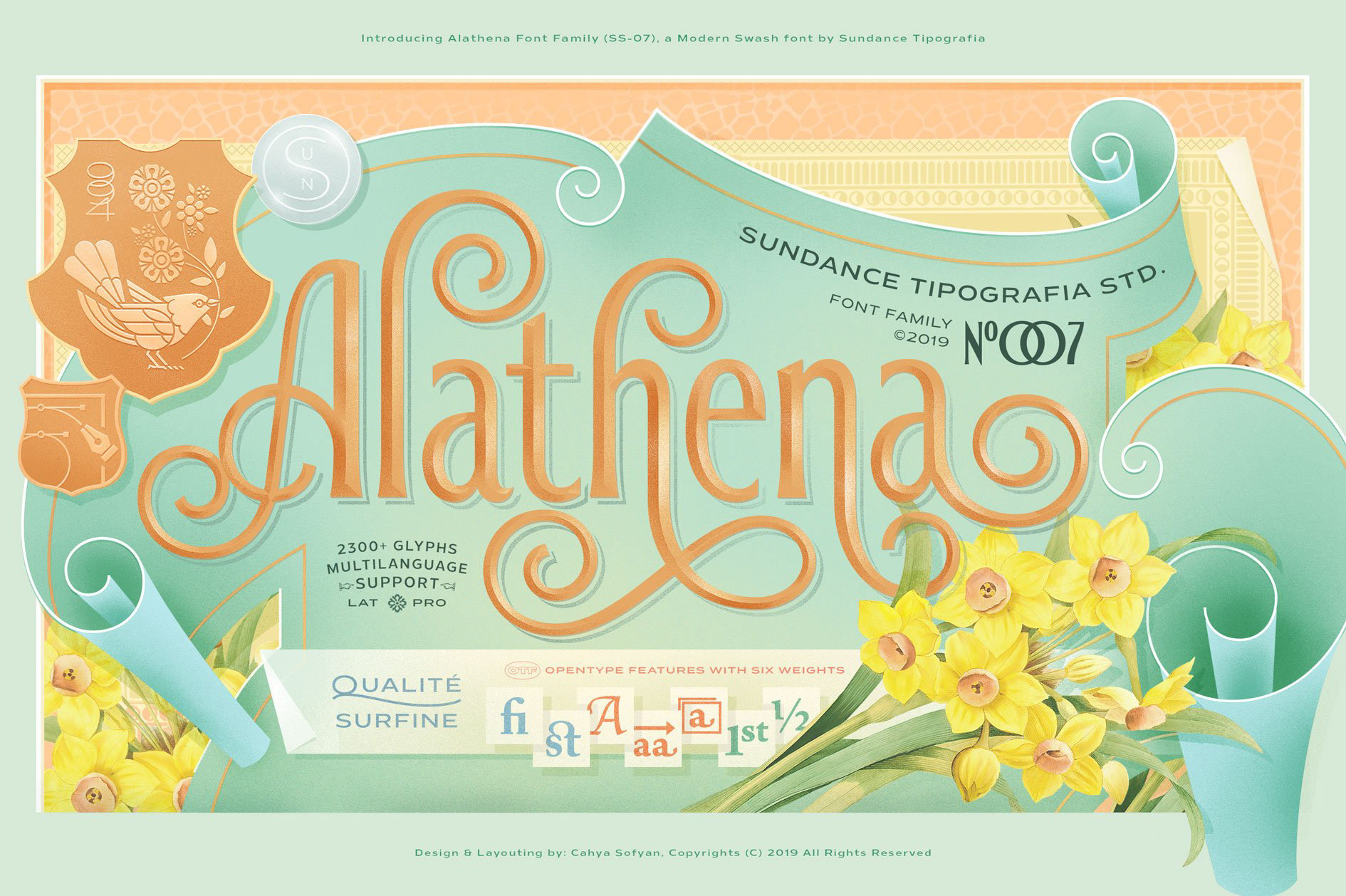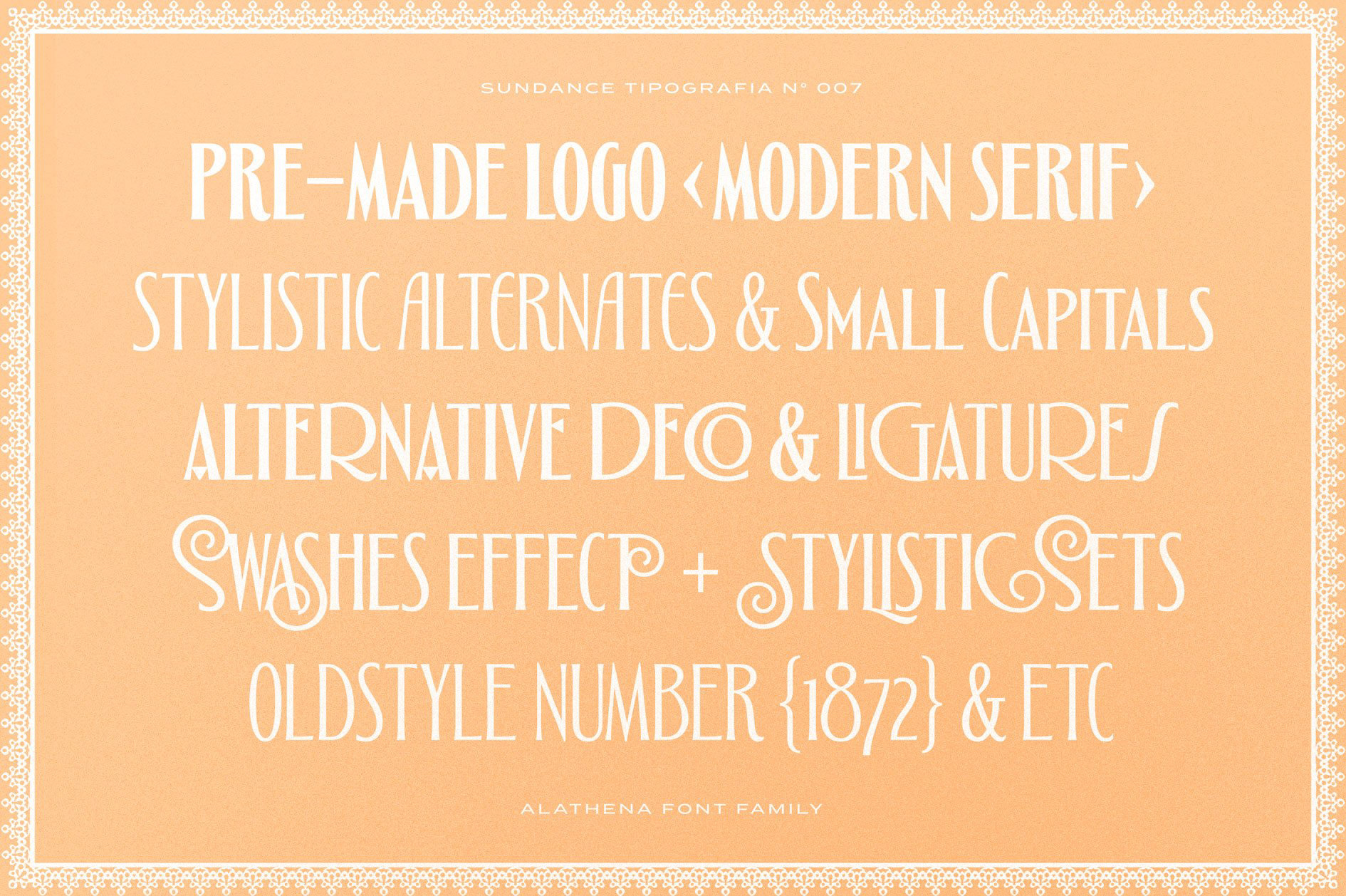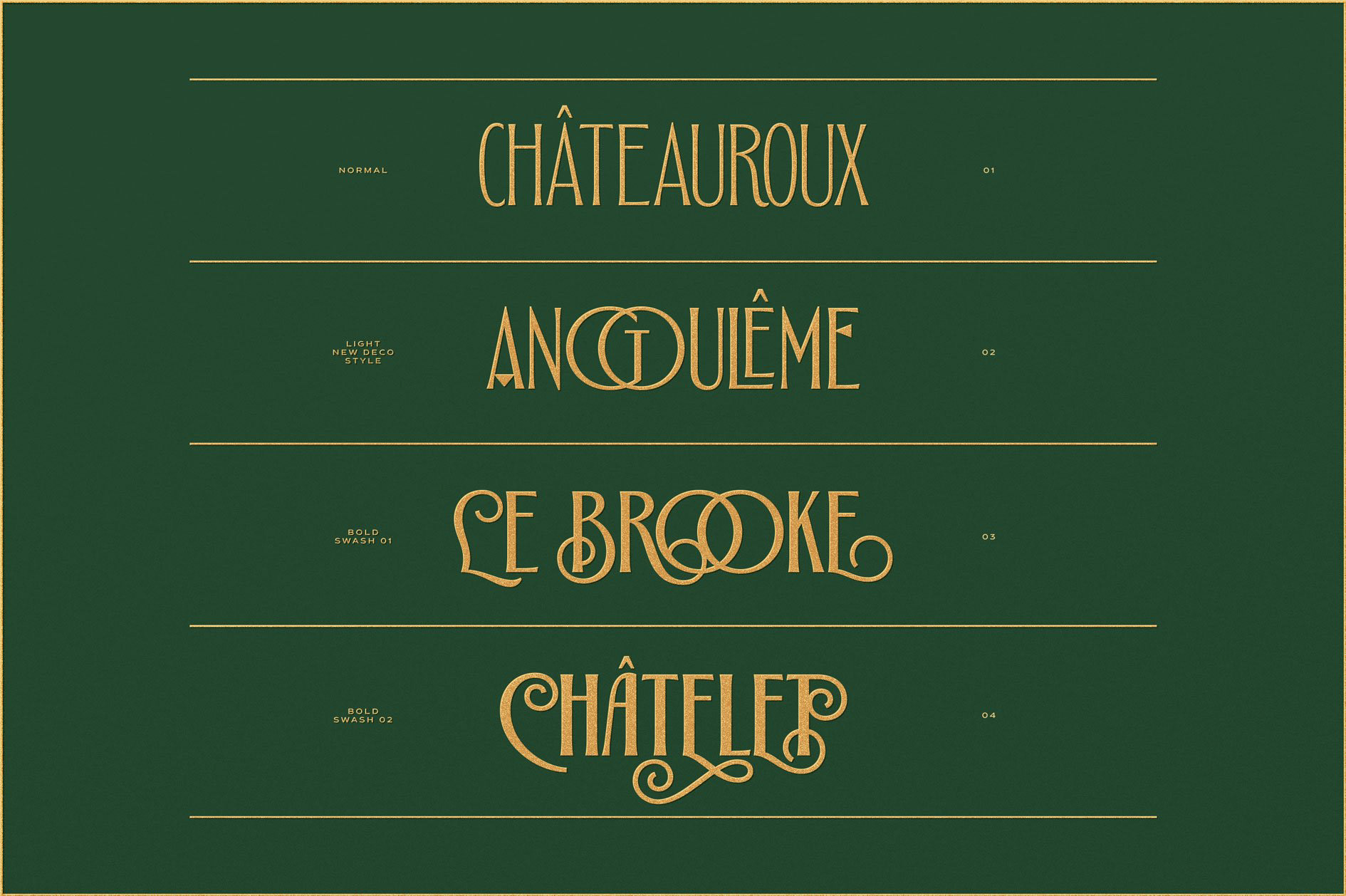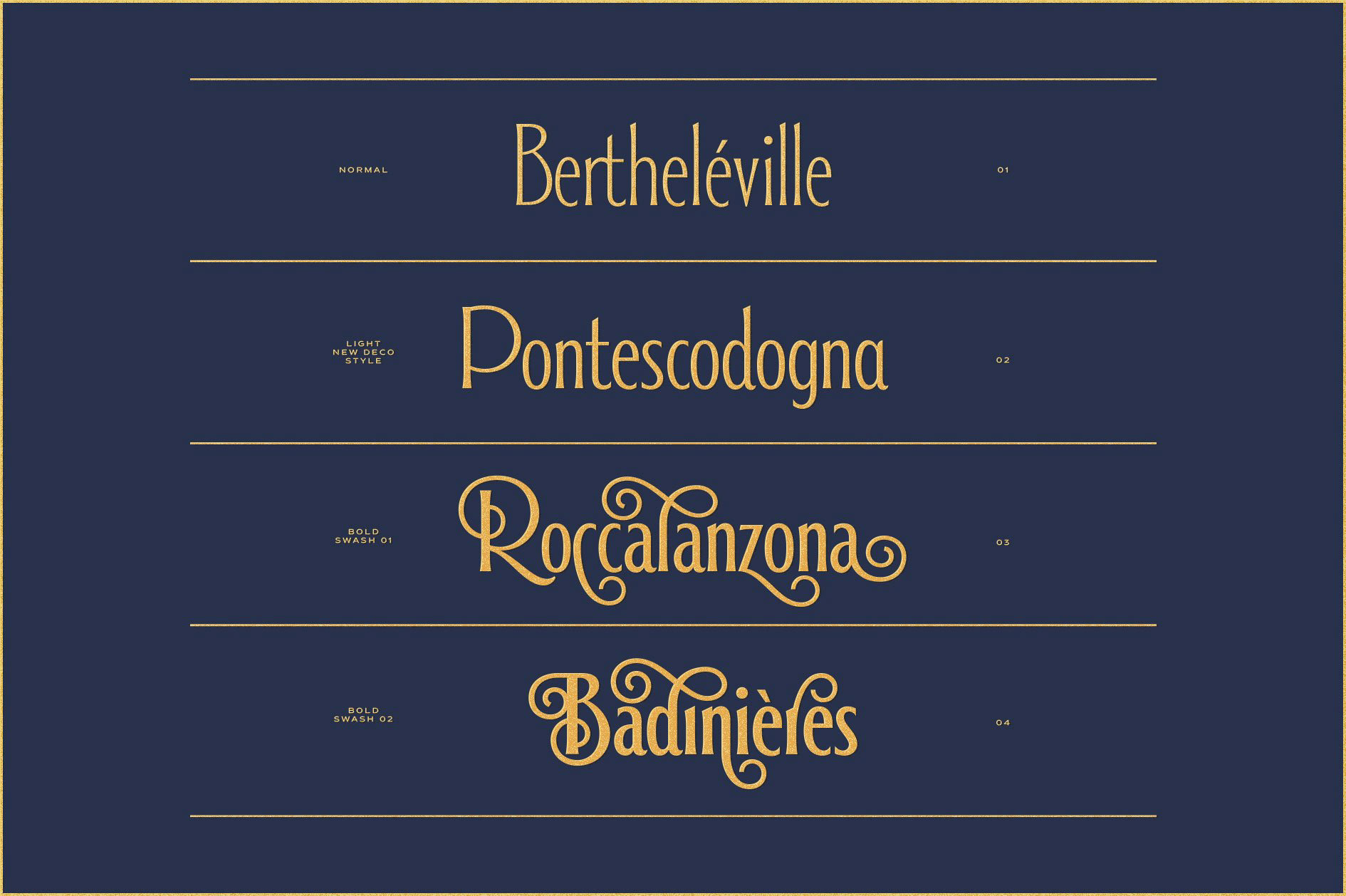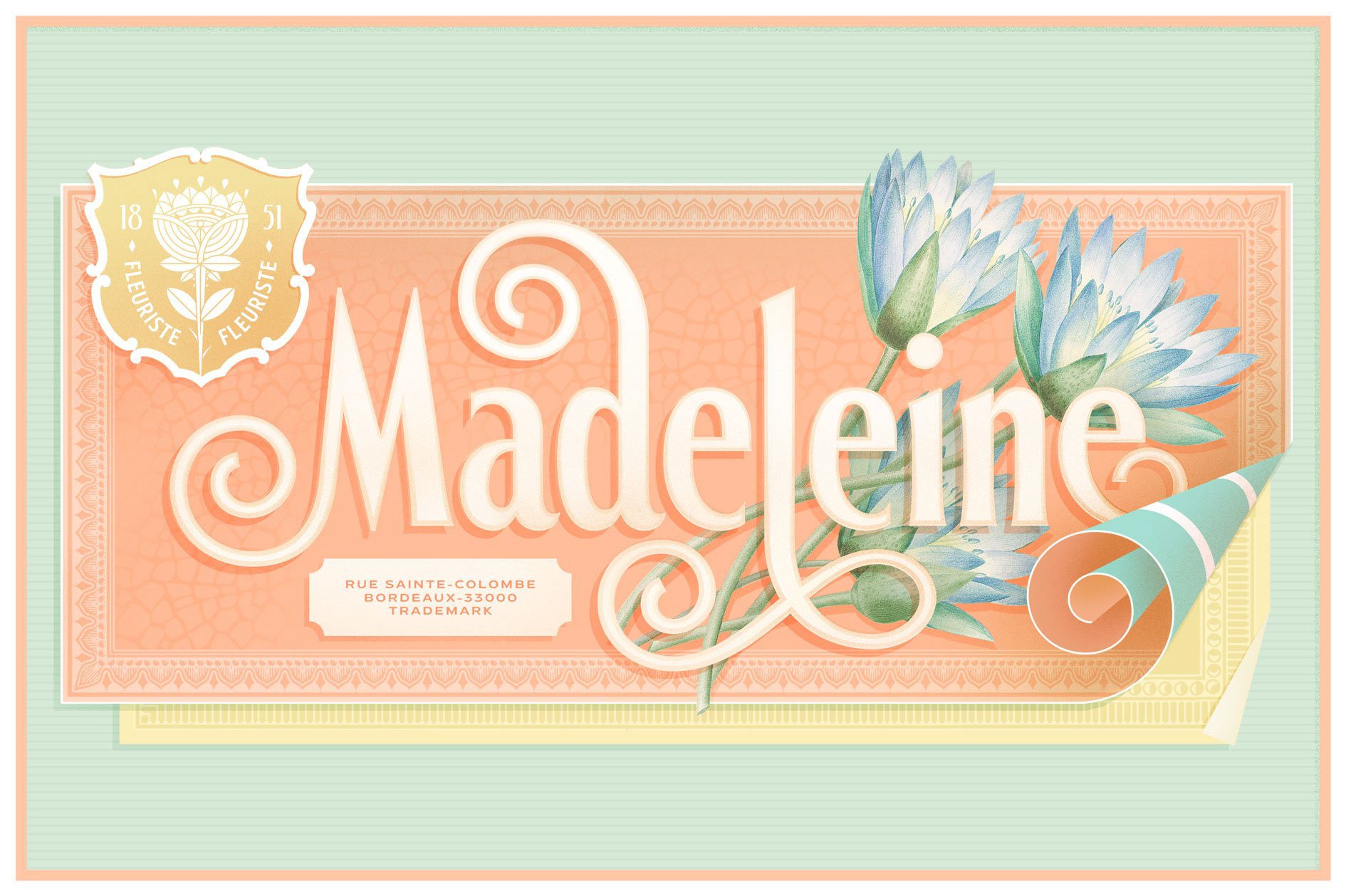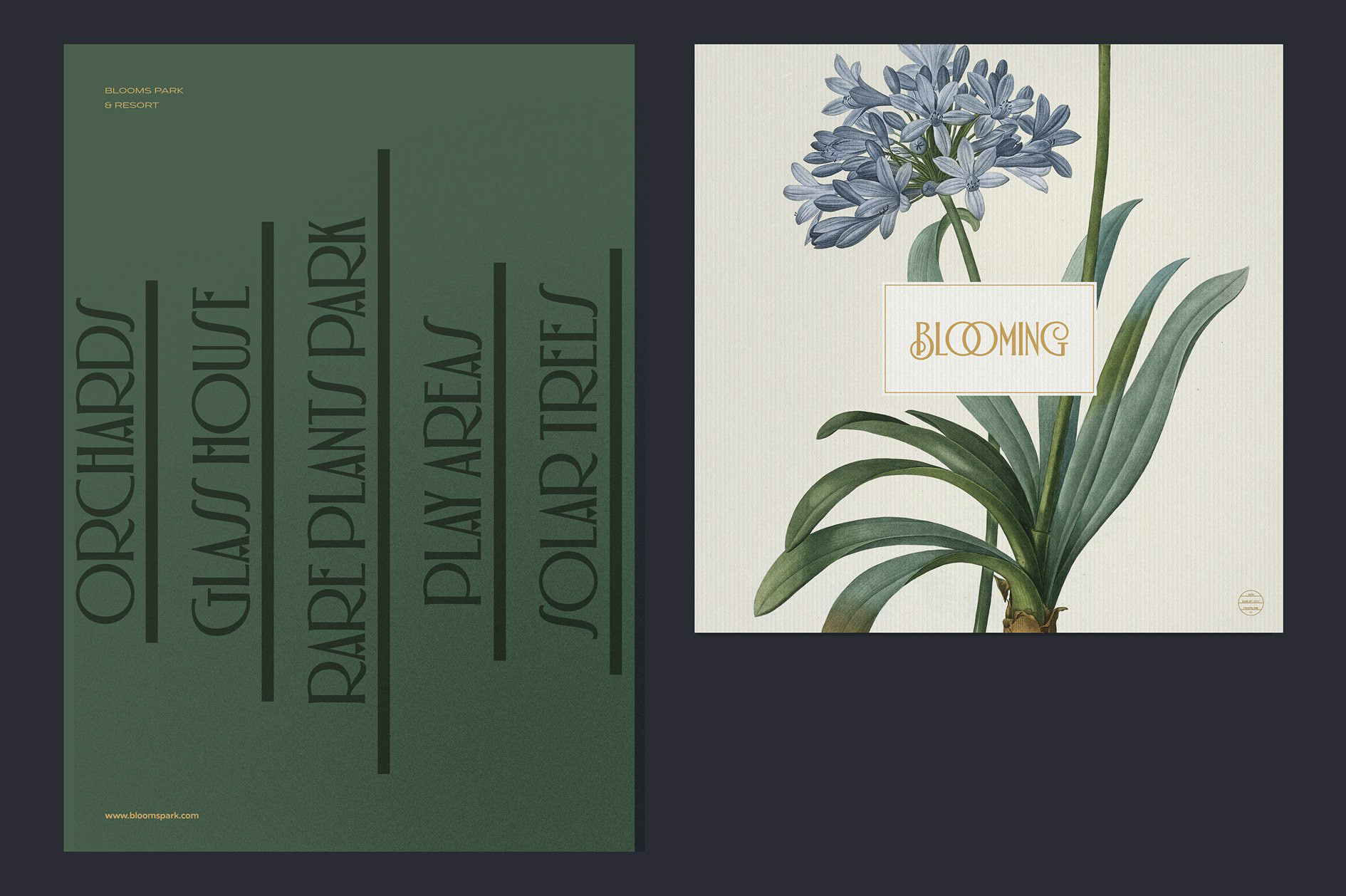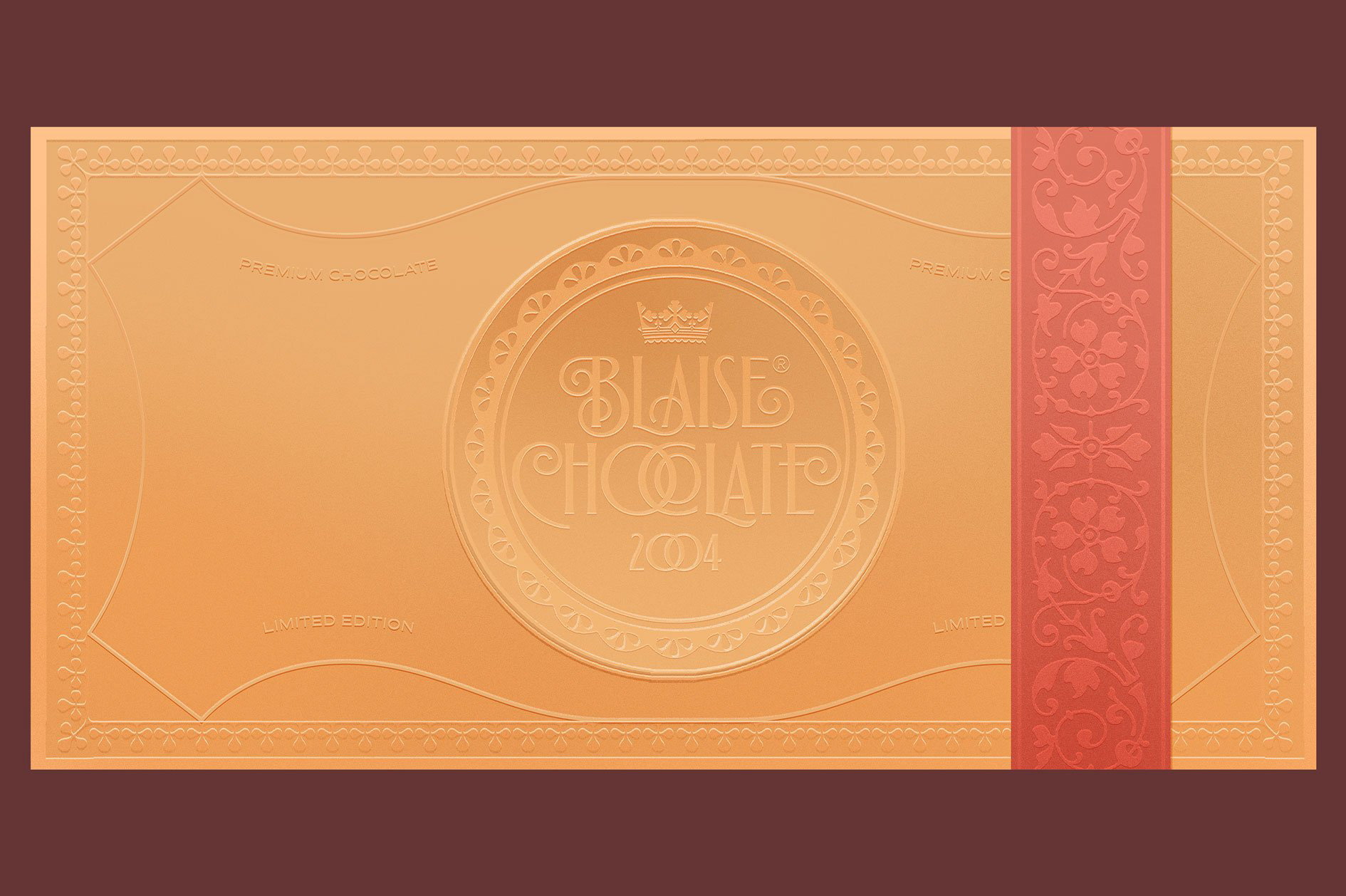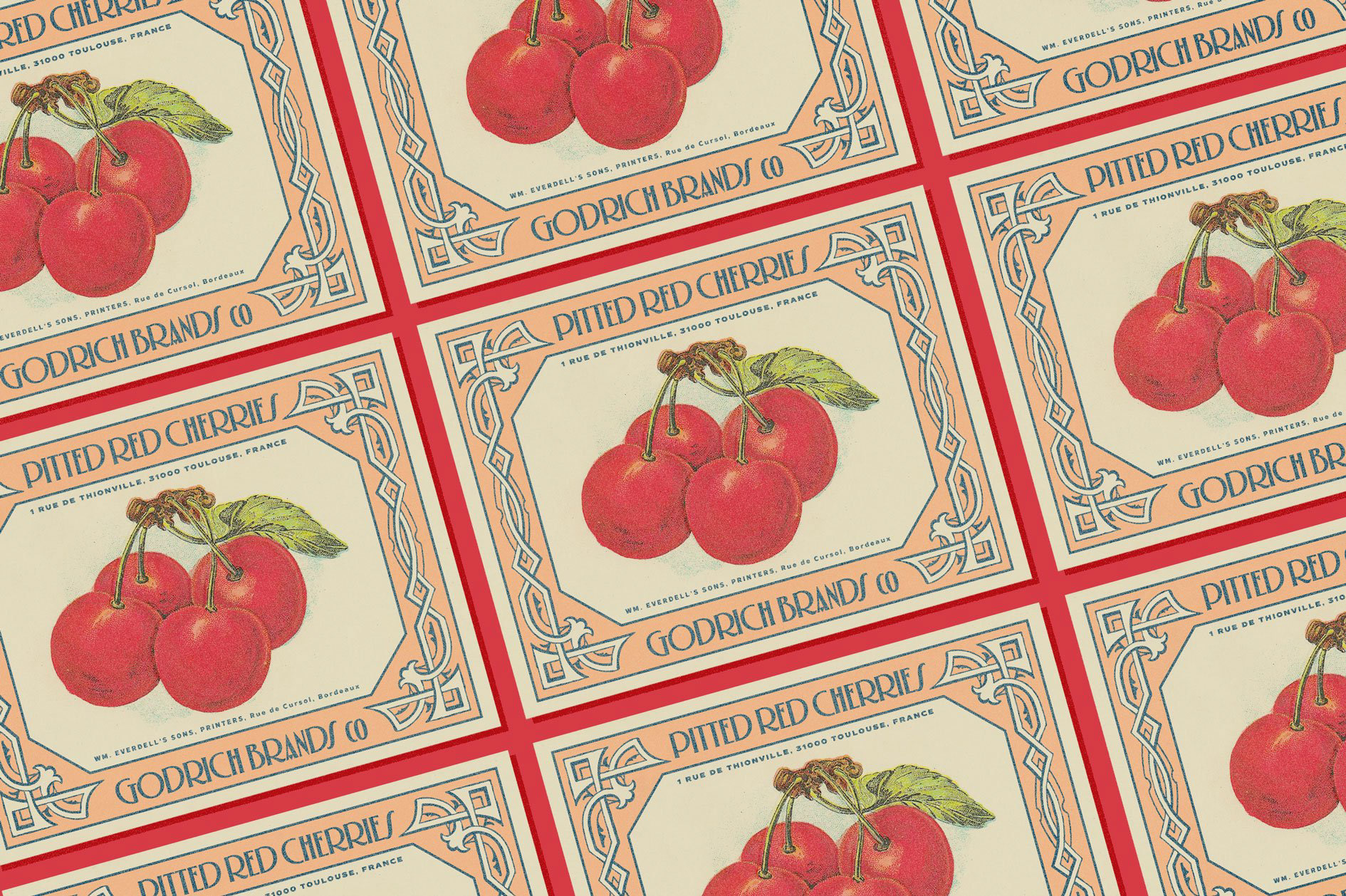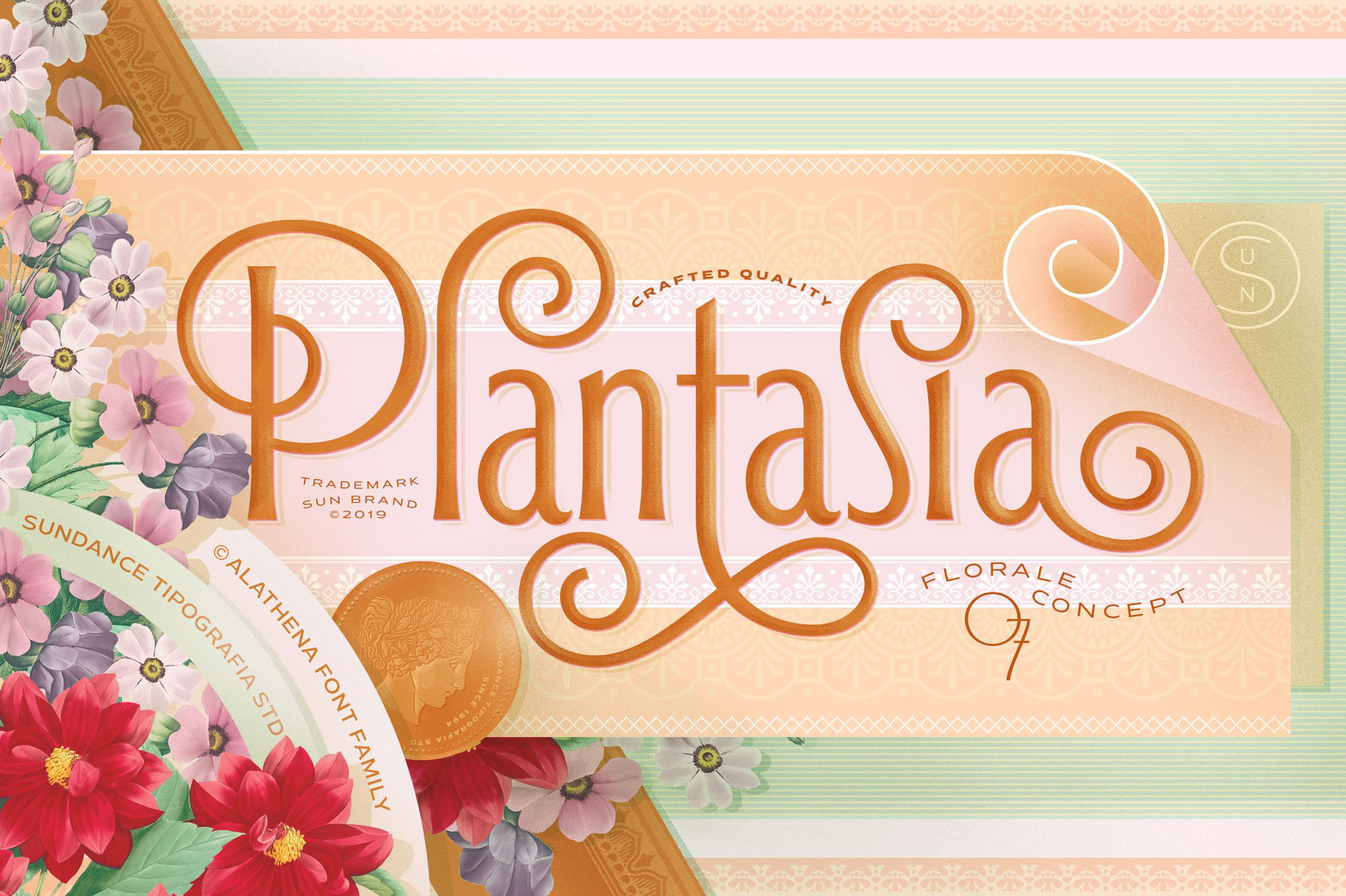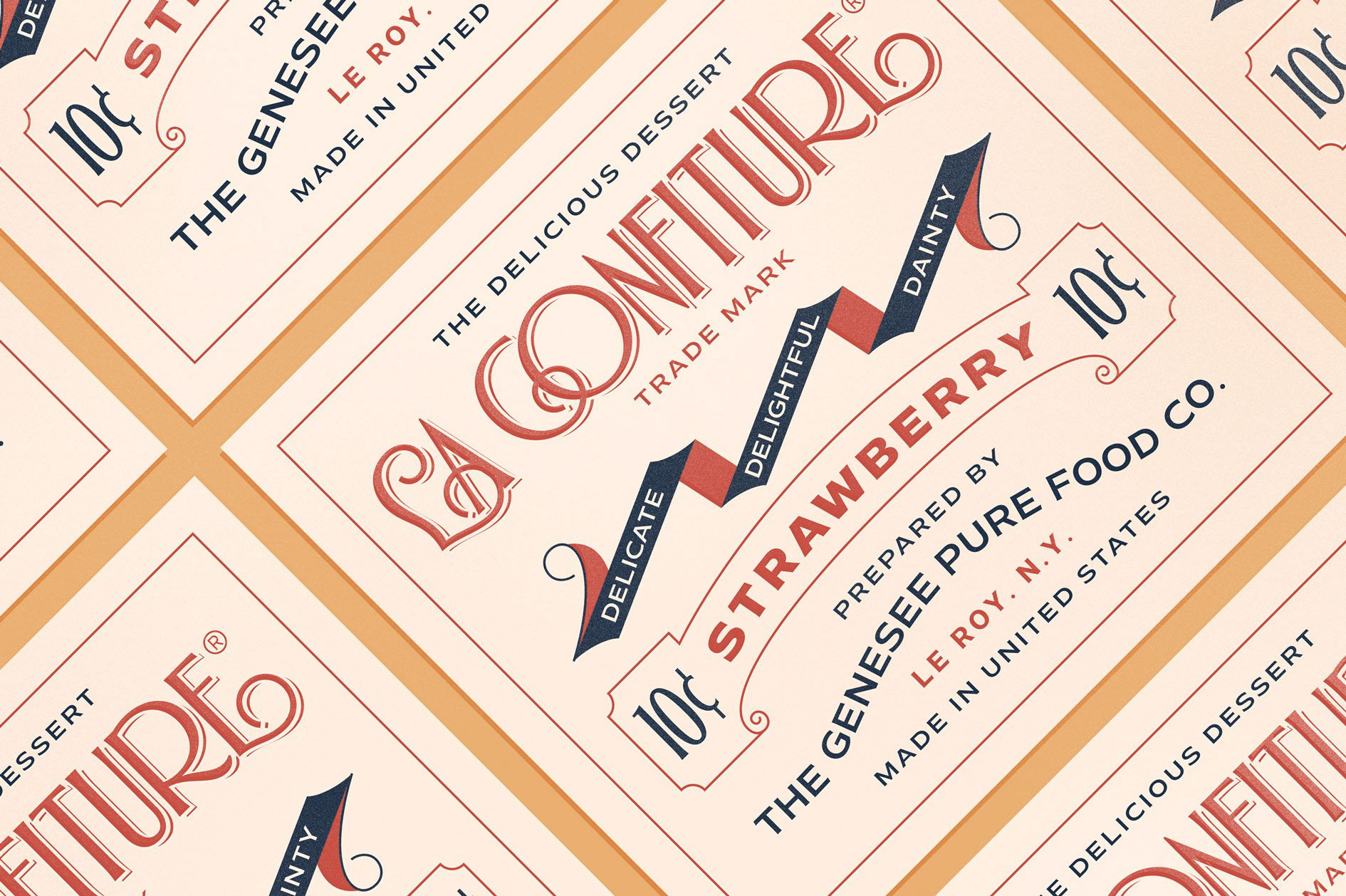
Explore more glyphs, swashes, ligatures, alternates with Alathena.
Decorative Alathena Font Display
Alathena Font Family was inspired by the France art decade between art nouveau to art deco, comes with 2 styles, Alternative swash, and Modern deco, with some modified ligatures. Available with 6 Weights, Thin, Extra Light, Light, Regular, Bold, Extra Bold with support 75+ language (Latin Pro).